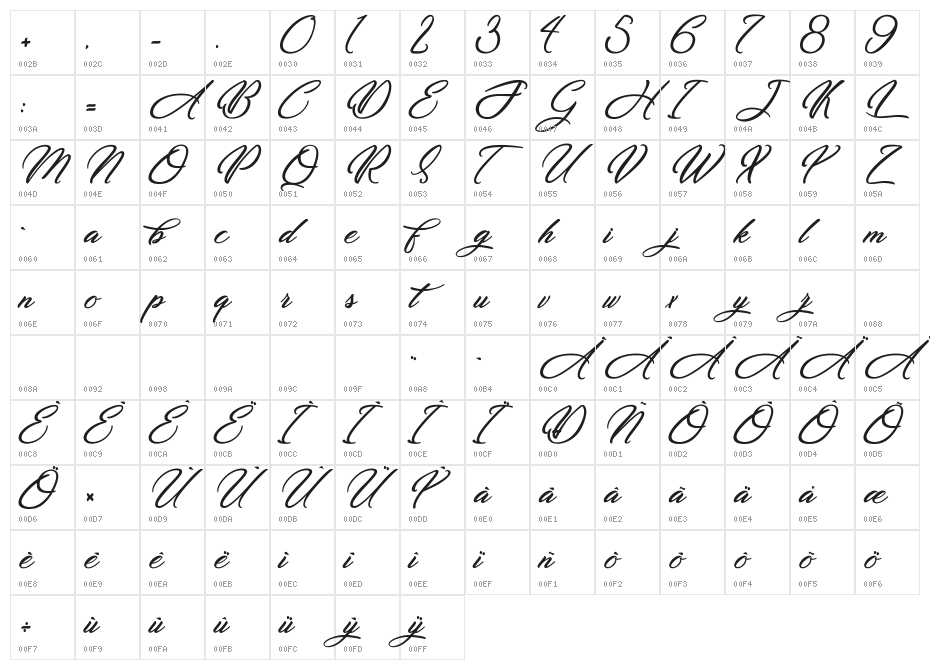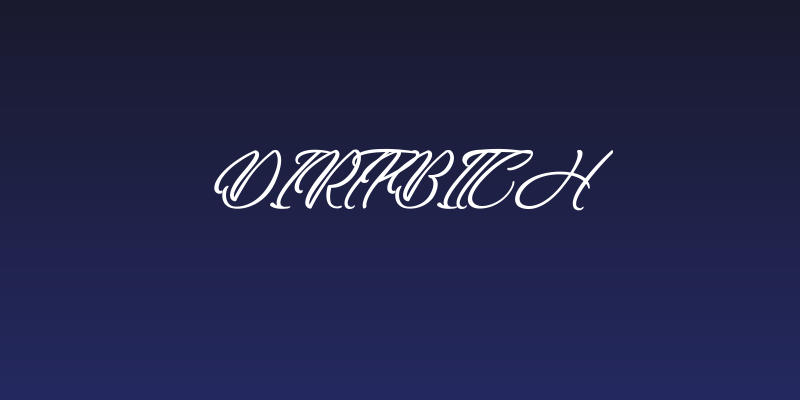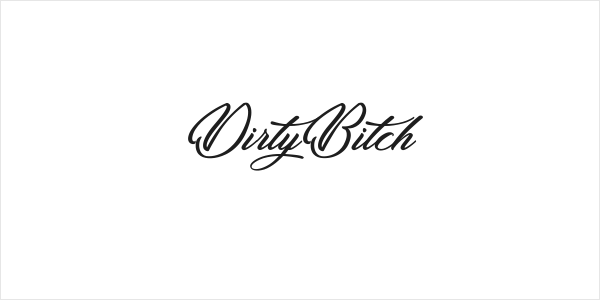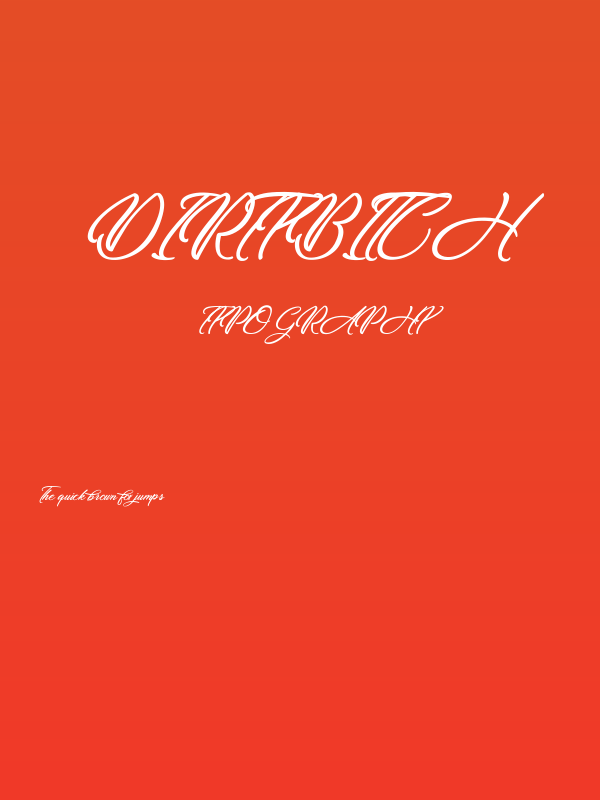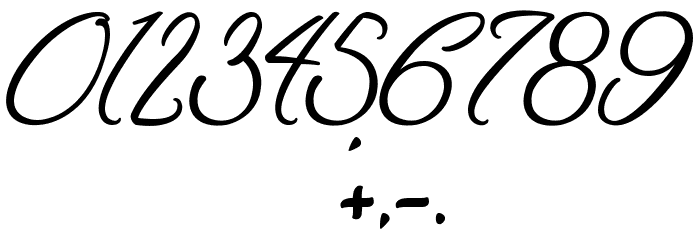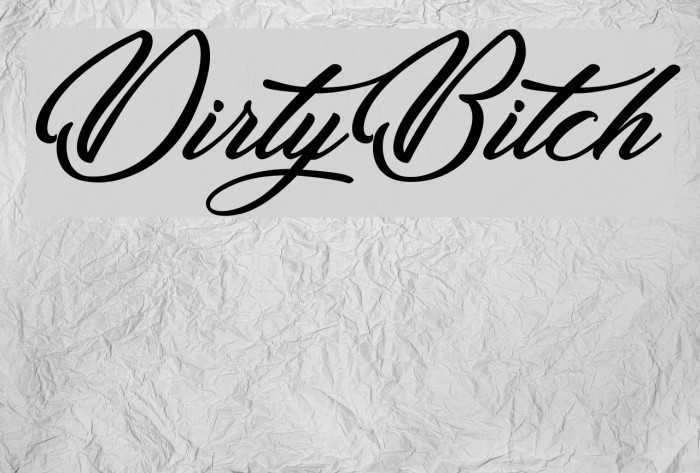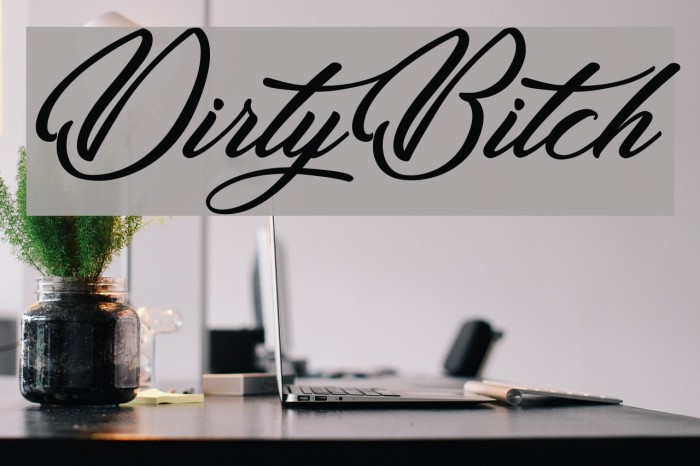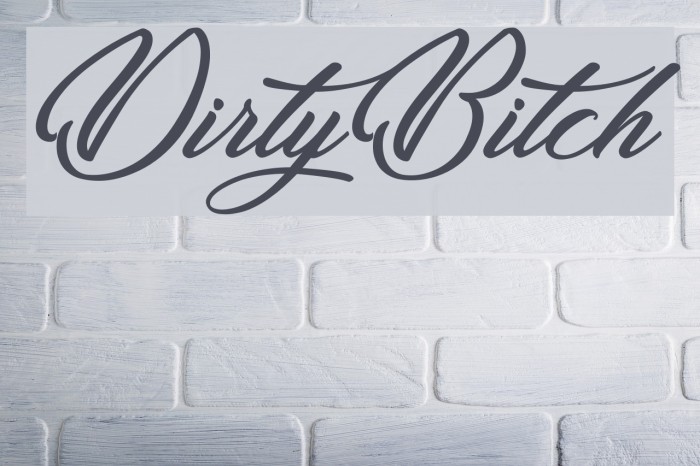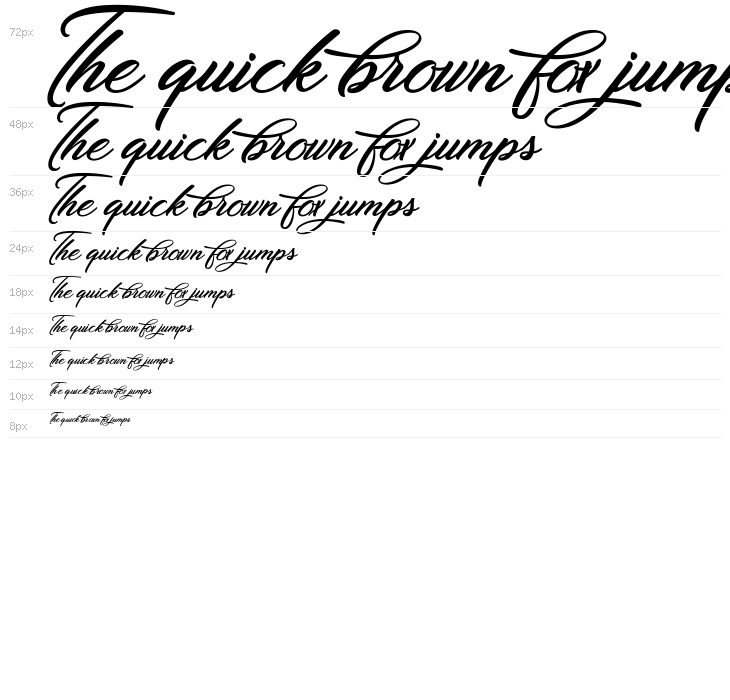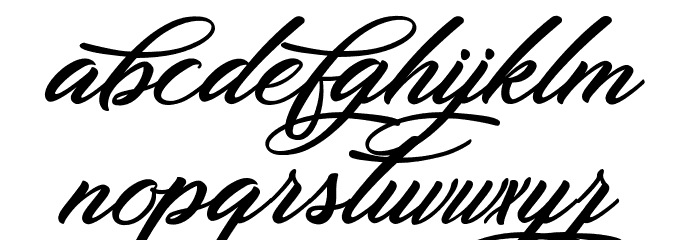
DirtyBitch Font
DirtyBitch Description
This elegant script font features flowing, interconnected letters that evoke a sense of sophistication and grace. The uppercase letters are ornate and sweeping, with flourishes that add a touch of drama. The lowercase letters maintain a consistent style, with smooth curves and a slightly slanted orientation that enhances the handwritten feel. Numbers are styled to match the letters, offering a cohesive look throughout. The special characters are designed with the same attention to detail, ensuring they blend seamlessly with the rest of the font. This font is perfect for projects that require a personal, artistic touch.